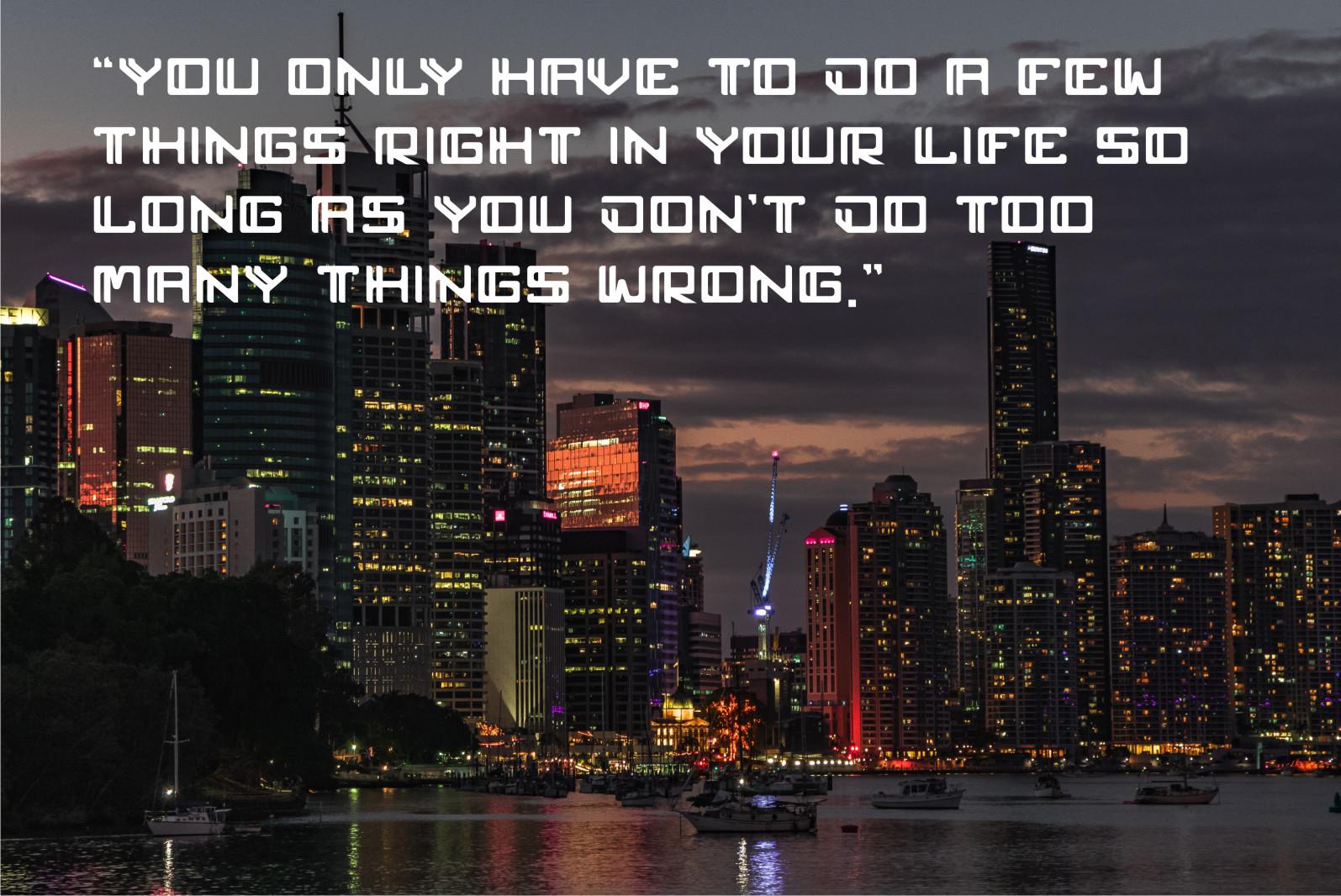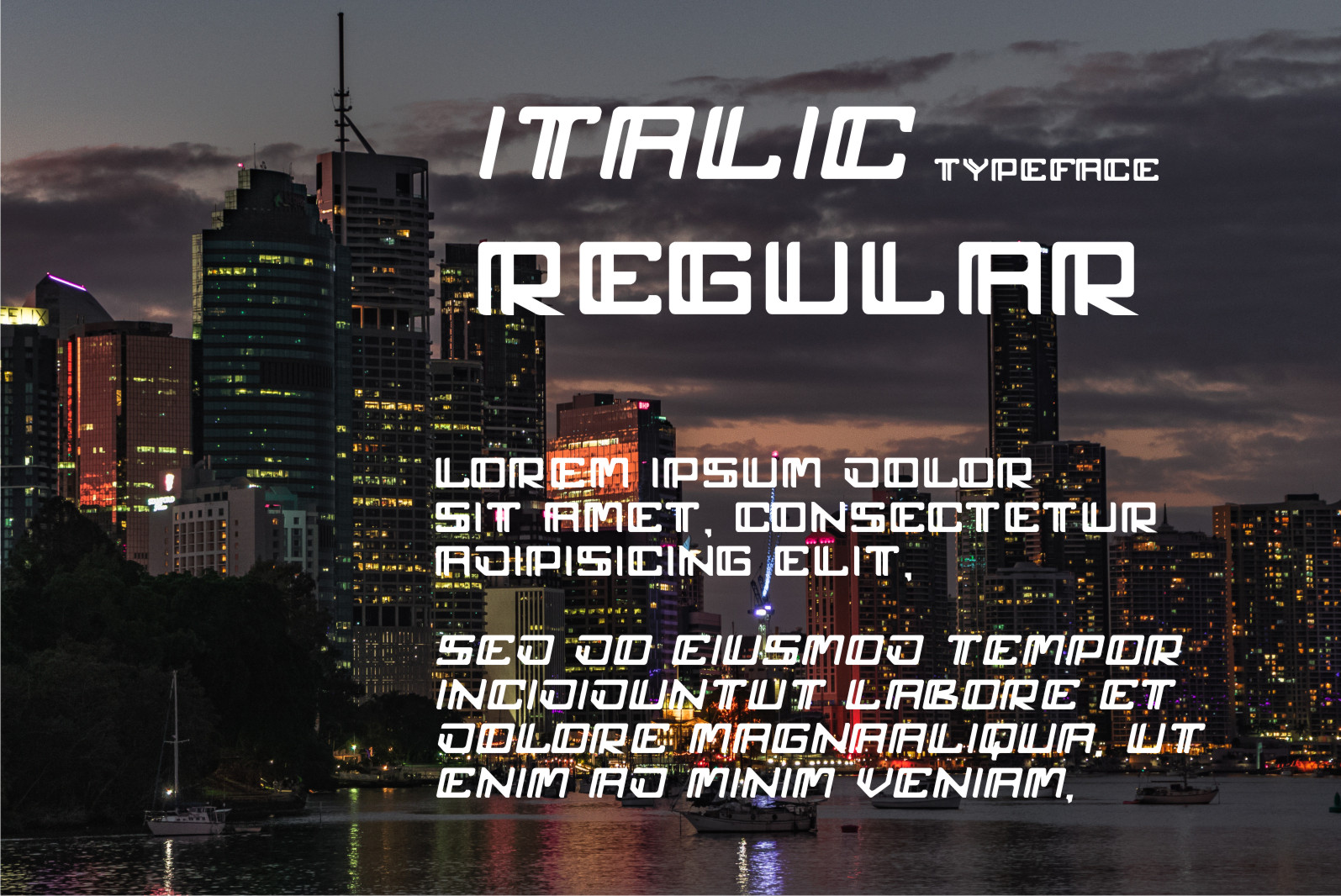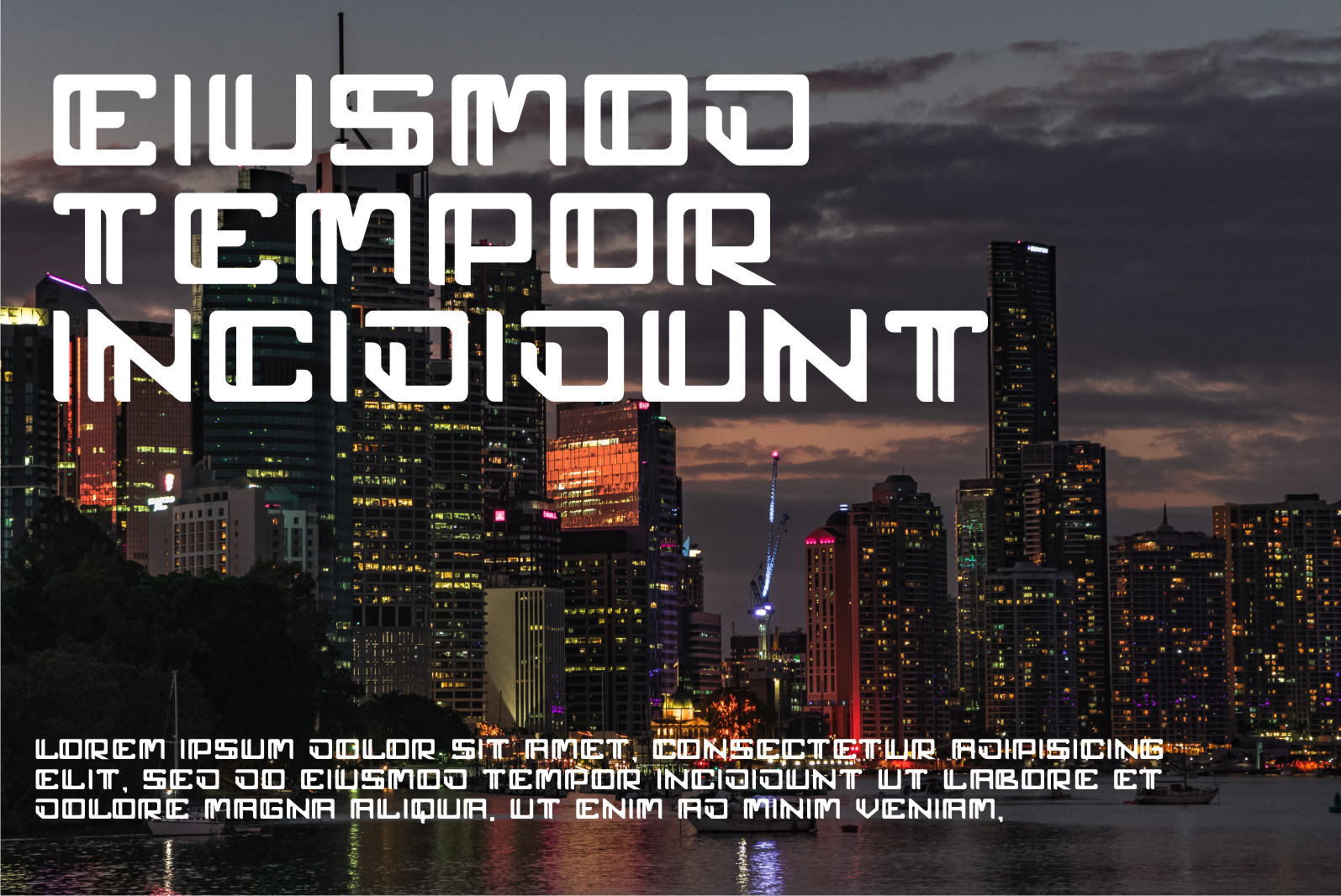
Pelutor Font
Pelutor Display Font
It’s a cool and modern-styled display font. This font is ideal for web designs, business cards, or pretty much anything else that requires a futuristic touch.